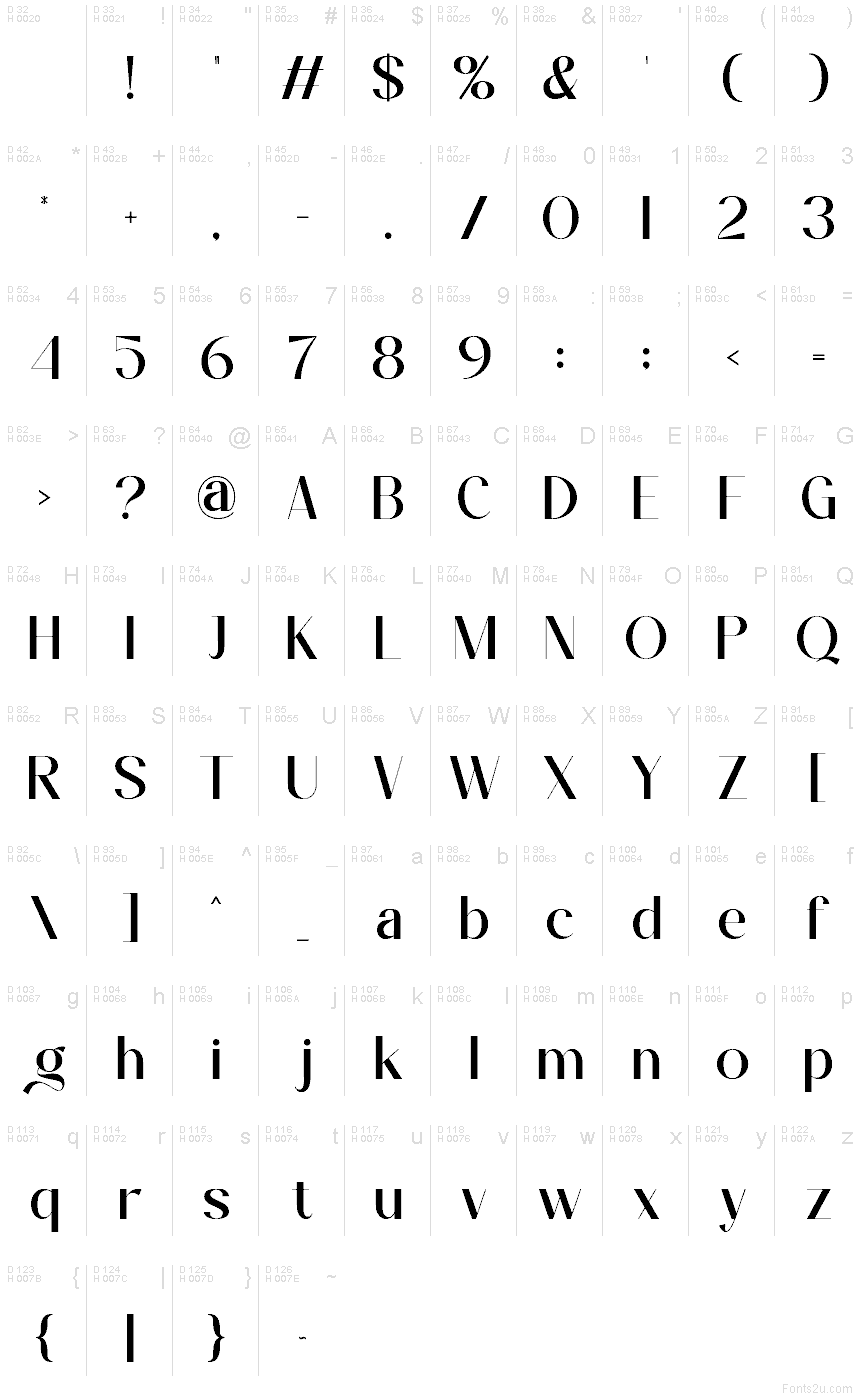
Hoolenn font by Ermedia Studio is a free high-contrast serif display font. Built around sculpted black-and-white tension, it swings from velvety thick curves to hairline links, carving elegant pockets of negative space. The rhythm feels runway-sharp yet warm, with rounded bowls that look ink-rich against crisp verticals-great when you need refined drama without fuss.
Using Hoolenn, headlines gain instant presence on fashion branding, boutique logos, editorial covers, packaging, beauty campaigns, and event posters. This free font shines at large sizes where its contrast can breathe, and it pairs beautifully with a quiet grotesk for copy. Add a touch of letterspacing and watch it glide across layouts.